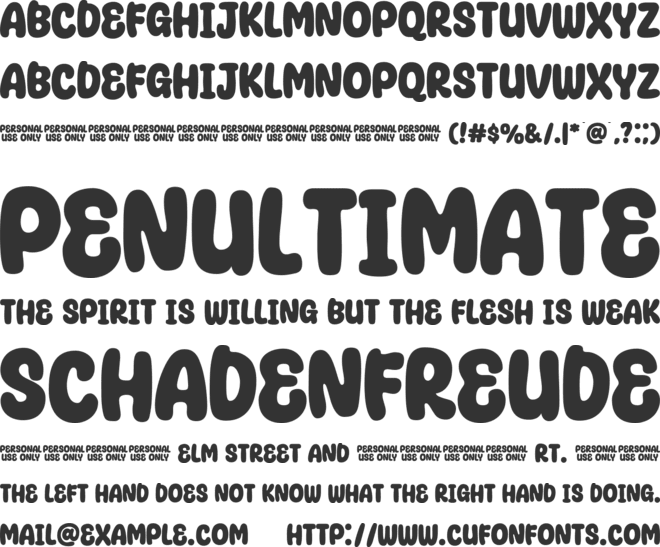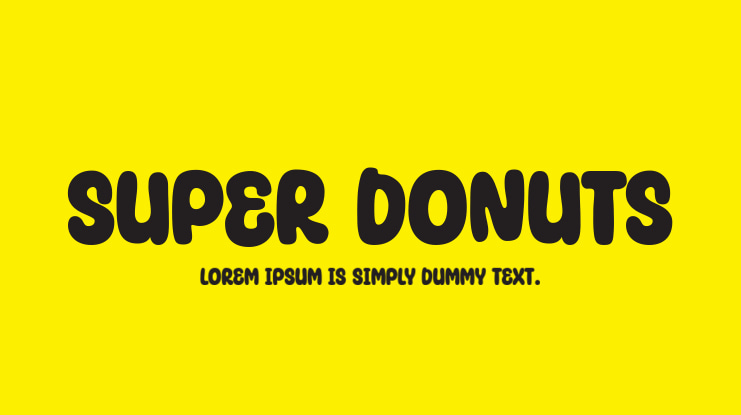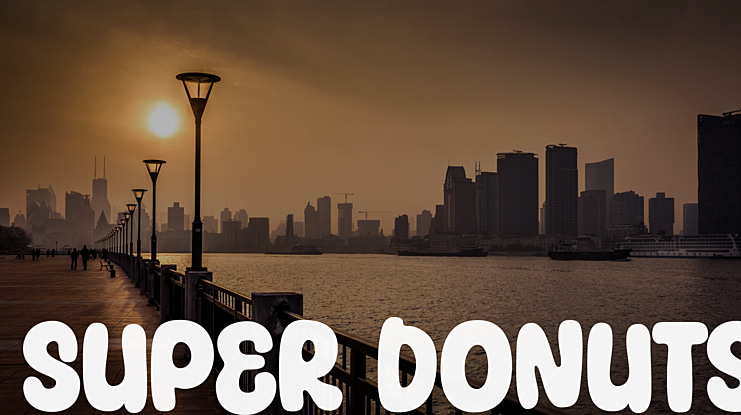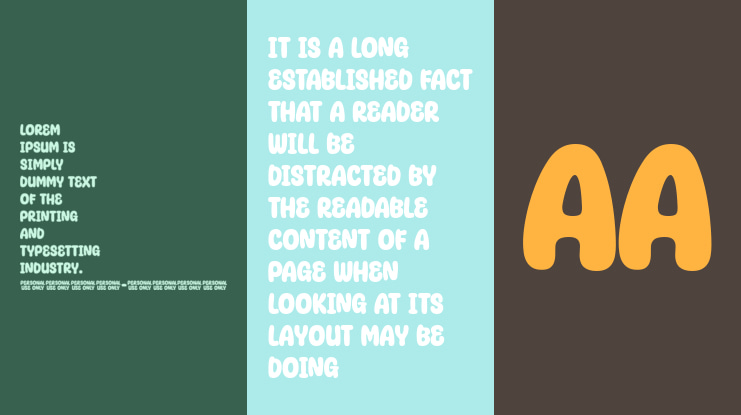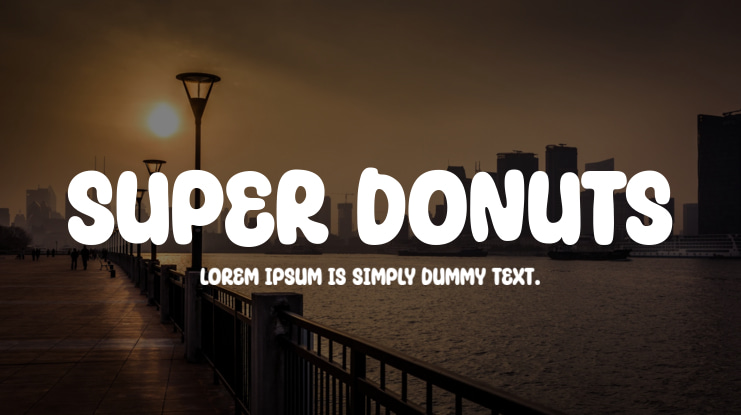
Super Donuts Font
Super Donuts is a font that exudes a sense of fun and playfulness with its cartoony style. Its bold strokes and large letters make it ideal for headlines and other prominent text. The rounded edges and uncomplicated shapes give it a light-hearted and enjoyable appearance. It's the perfect typeface for projects that require a touch of personality.